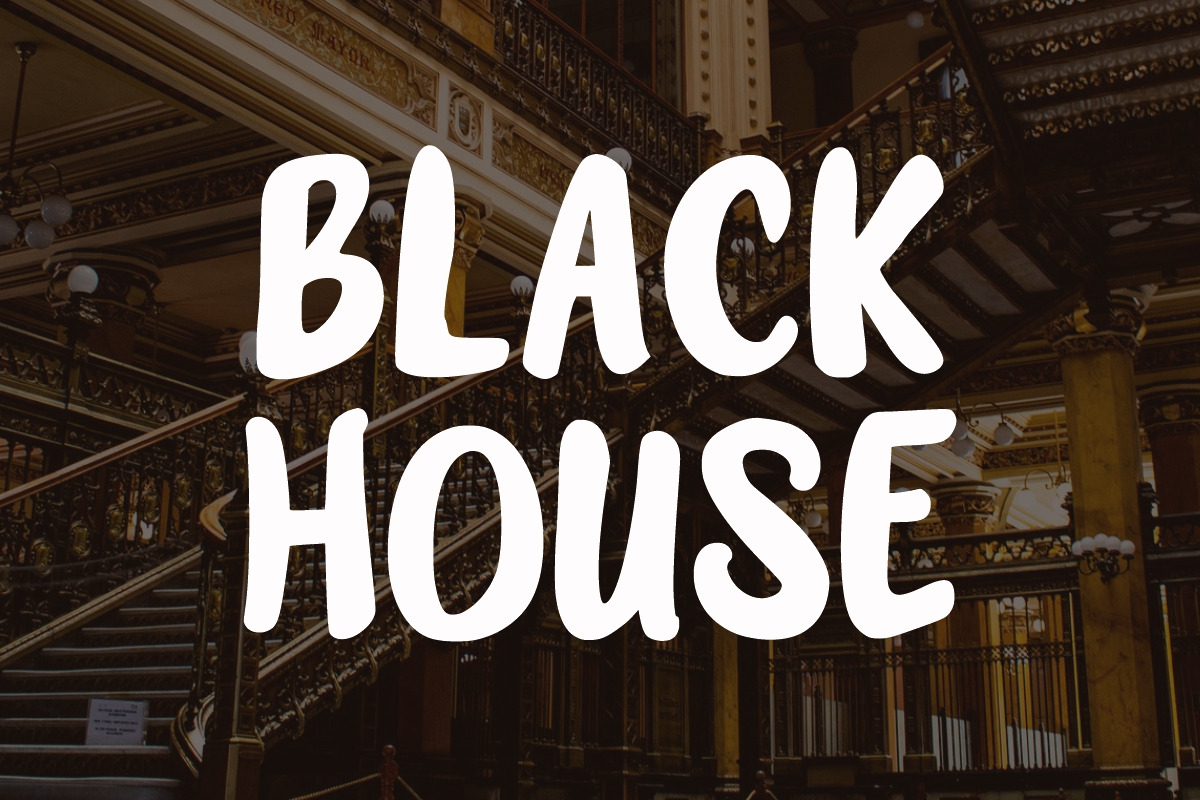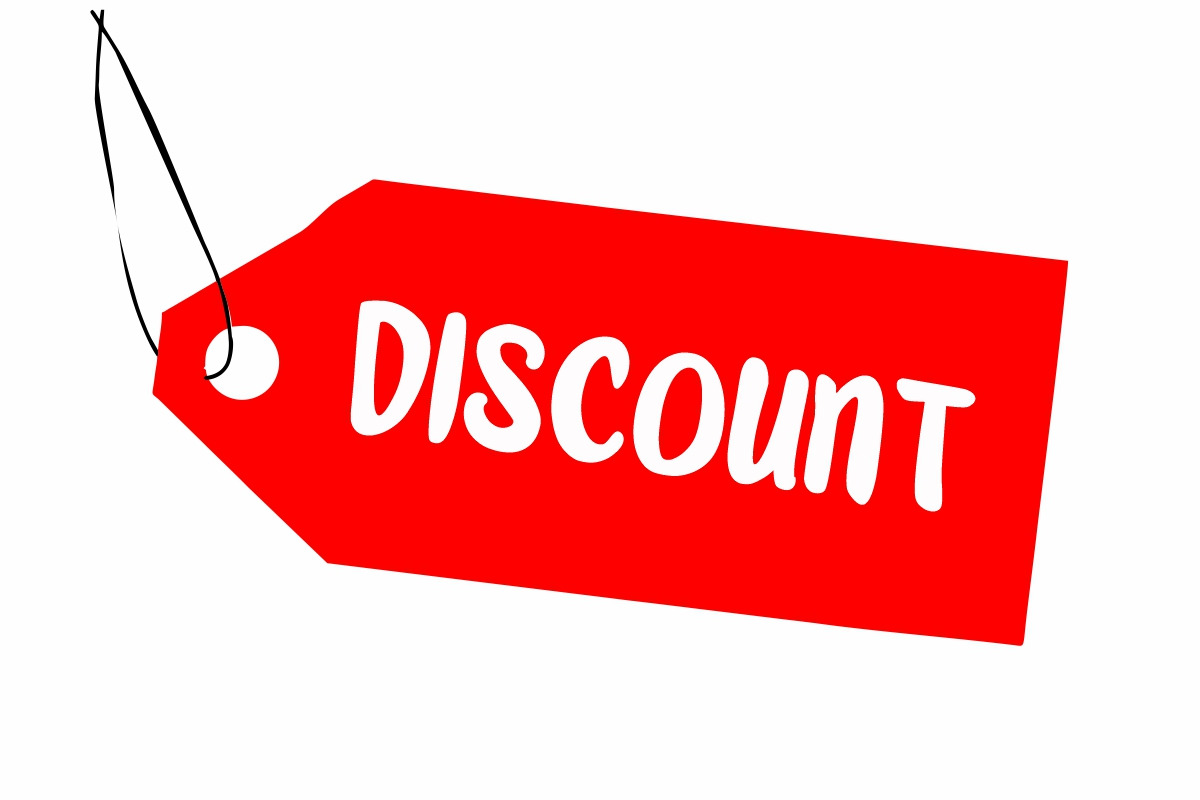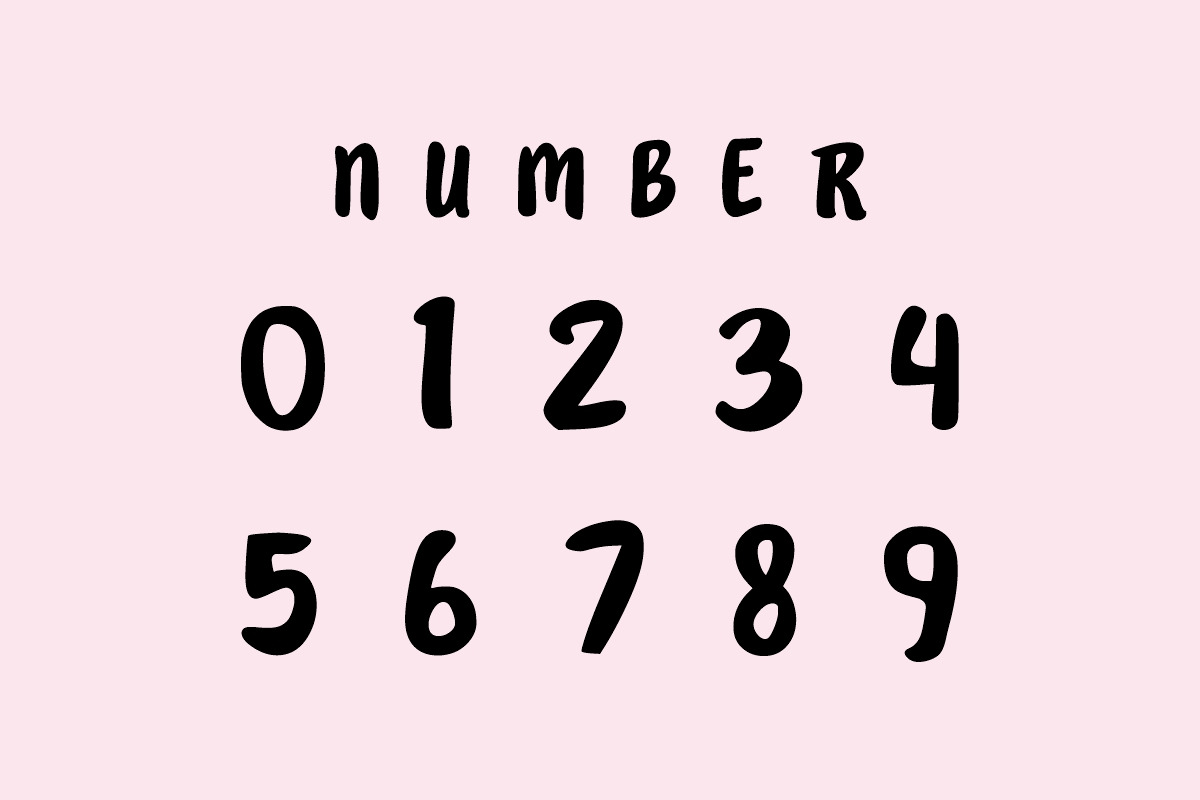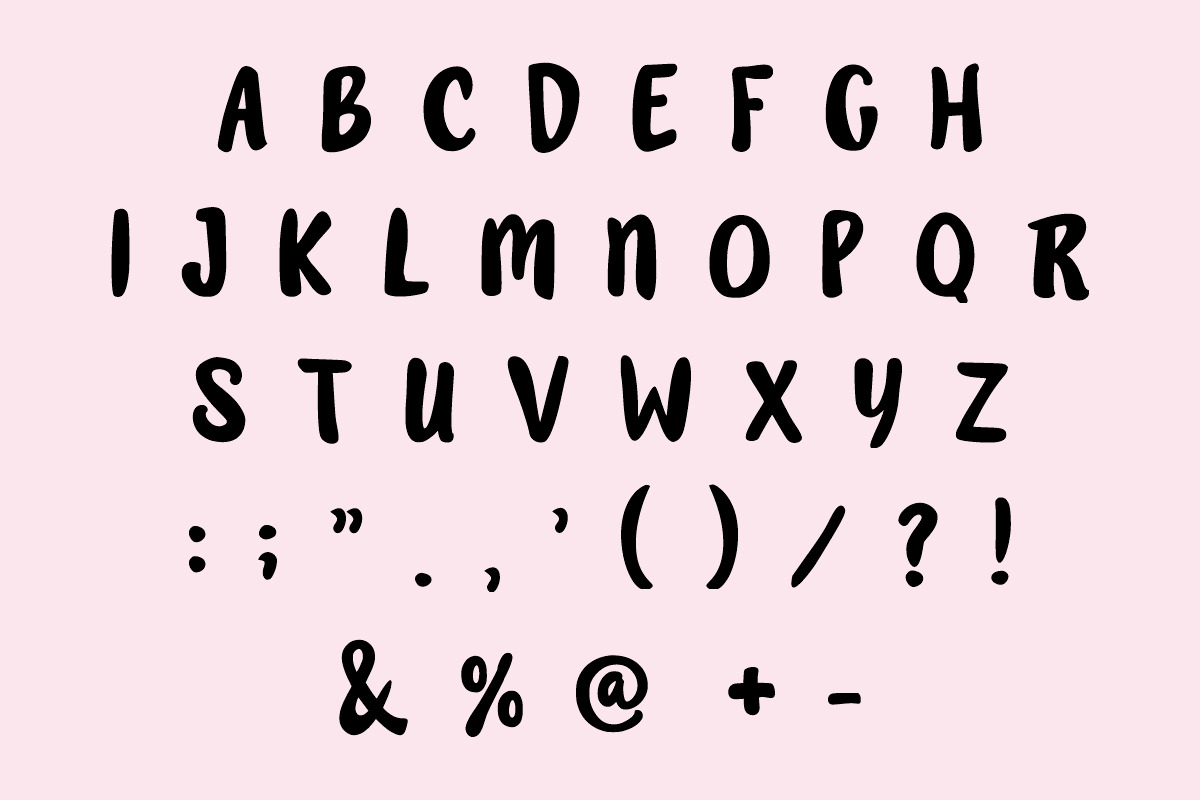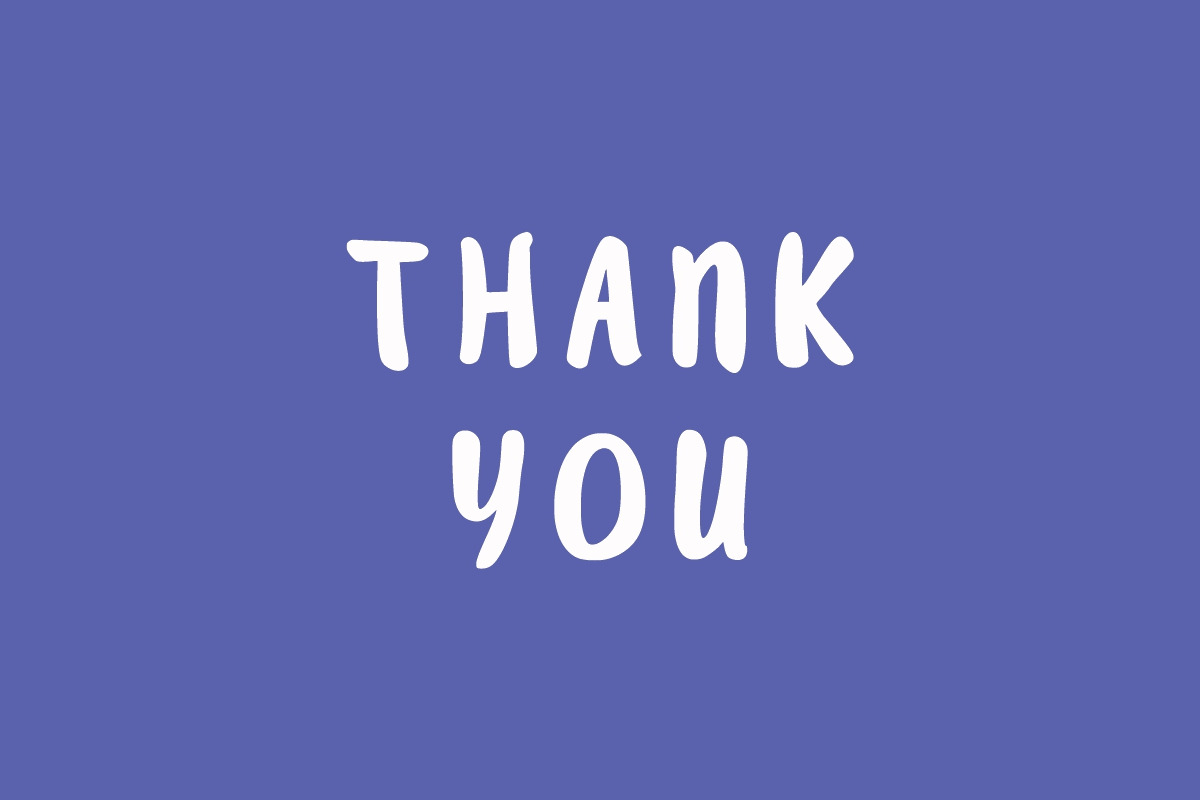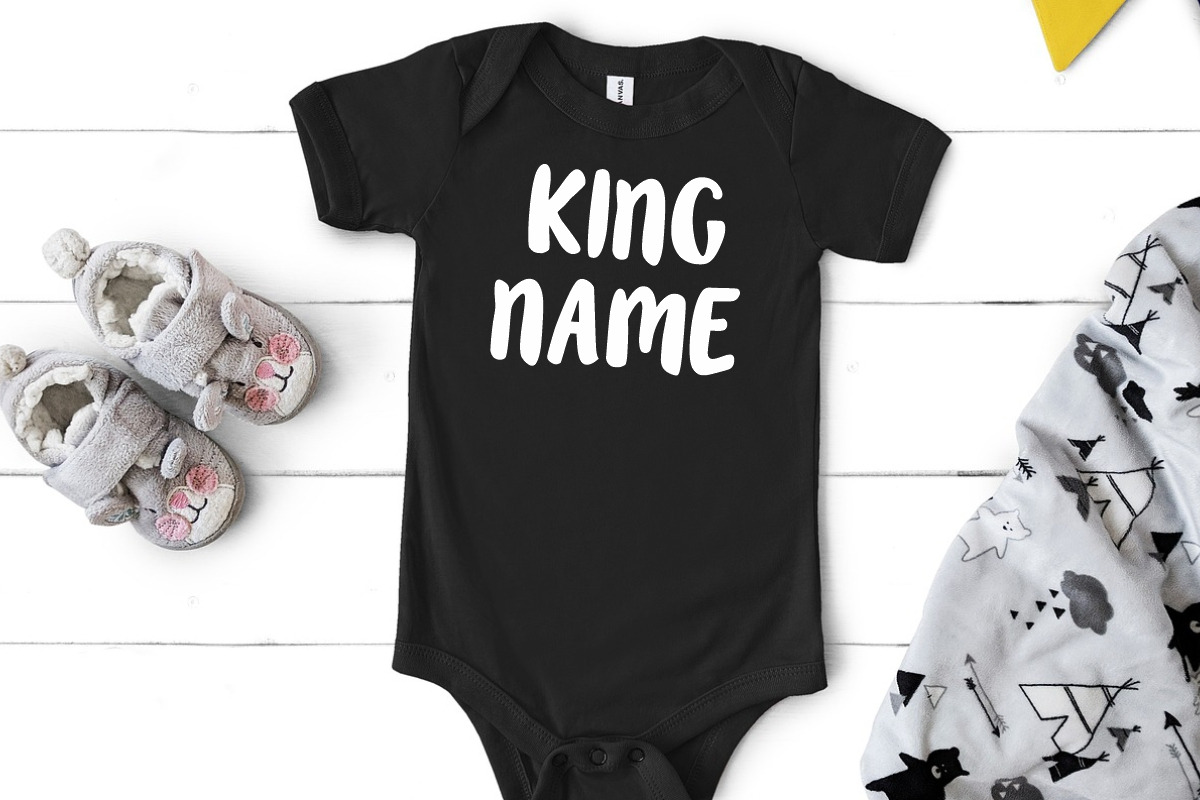
Grizzy Display
Grizzy Display is a cute, simple, and friendly display font. Its informal style and casual vibe will make this font a go-to choice for each of your creations that require a relaxed touch. It is suitable for any product packaging, invitation, quote, t-shirt, label, poster, or logo that you wish to develop!